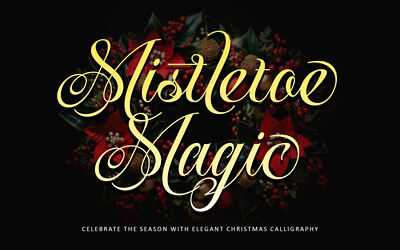
Feb 8, 2025Script & HandwrittenMabelle Font Mabelle is a romantic and festive handwritten font with a beautiful love. It is ideal for holiday-themed greeting cards, Christmas, weddings, and any crafting project that requires a romantic touch. Font DetailsDesigned by: Thomas Aradea (Letterara)WebsiteLicense: Free for personal use Download Mabelle FontFile size: 38.36 KBCreated: February 16, 2025Updated: February 16, 2025 Download Explore similar fonts Santa Catalina Font Sherlyn Font Anoretha Sweet Font Aaksaraan Rania Font Arthur Meridian Font Rhetorical Flourish Font # Bouncy# Calligraphy# Handwriting# Holiday# Pretty# Wedding More fonts by Thomas Aradea (Letterara)Dream Theatrion FontOnlyone ScriptCarevo FontBlack Pink ScriptIstarot FontZorvex FontCrowen Zero FontGalgadot Font